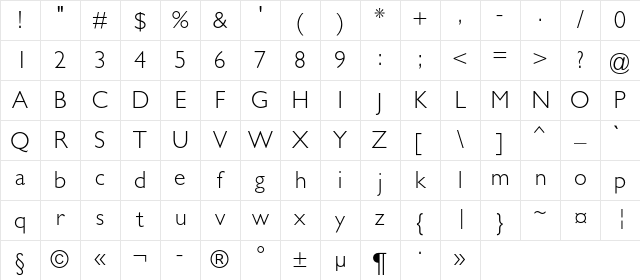
GalsLightC is a composed and adaptable typeface that performs quietly and consistently across a wide range of design contexts. Its slender proportions lend an understated elegance to any composition.